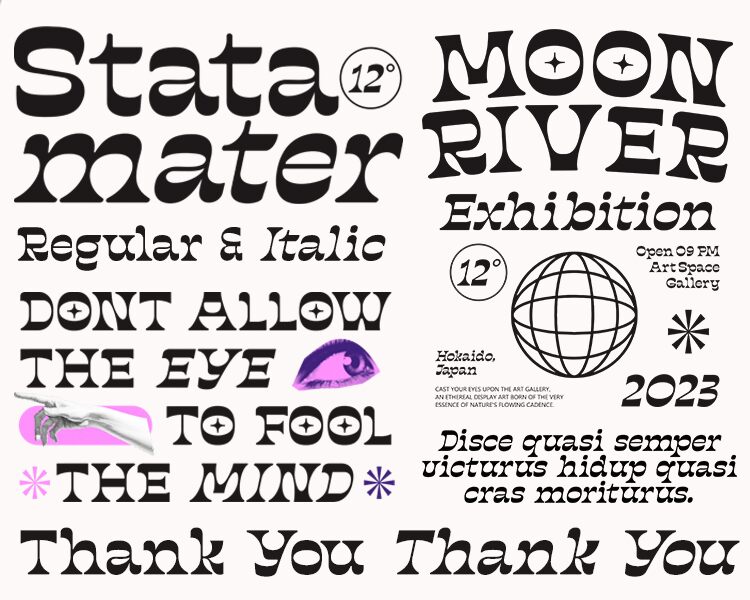
Stata Mater font family by Four Lines unveils a groovy, dynamic typeface that captures a modern twist on vintage aesthetics with a retro vibe. A free font with geometric influences, its expressive and slightly whimsical nature creates a visually striking and distinct character. The font refreshes traditional designs by introducing a new package of unique characters that evokes a sense of nostalgia for a contemporary audience.
Consider this beautiful font duo for creative projects like music album covers, poster design, book covers, T-shirts, and magazine titles. Stata Mater can effortlessly also be used on fun branding projects, visual identity design, website headlines, and even geometric logotype design.